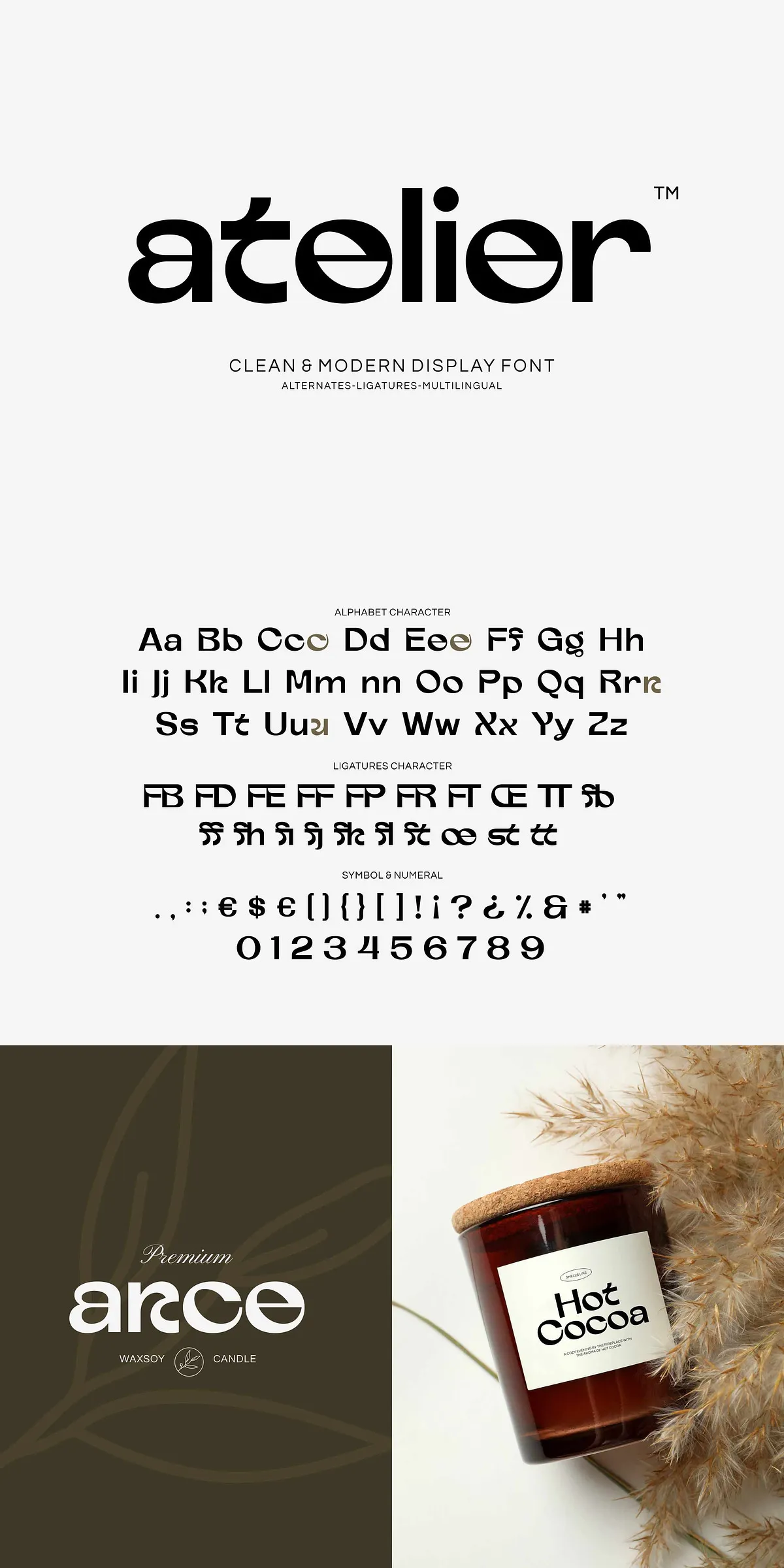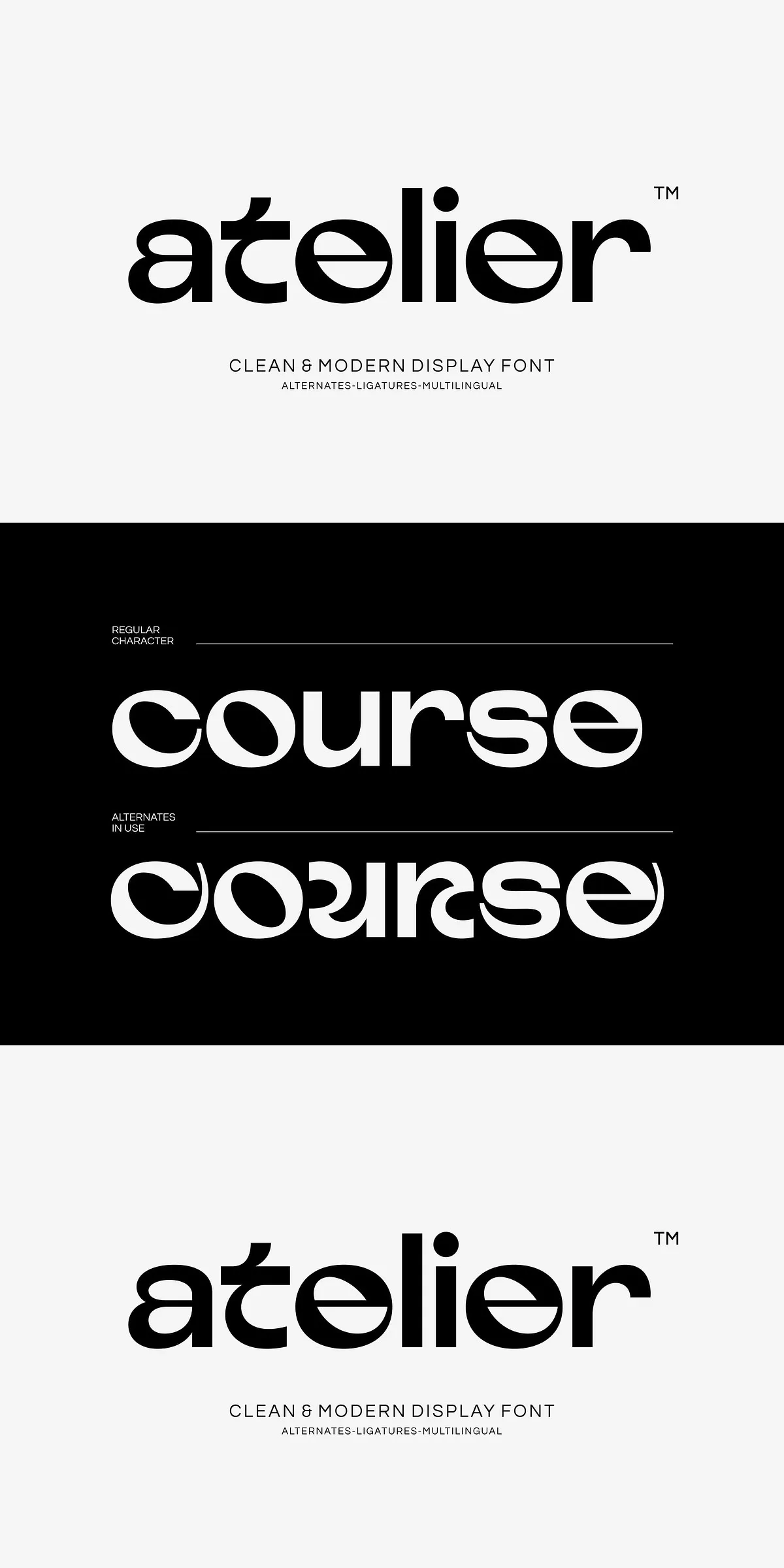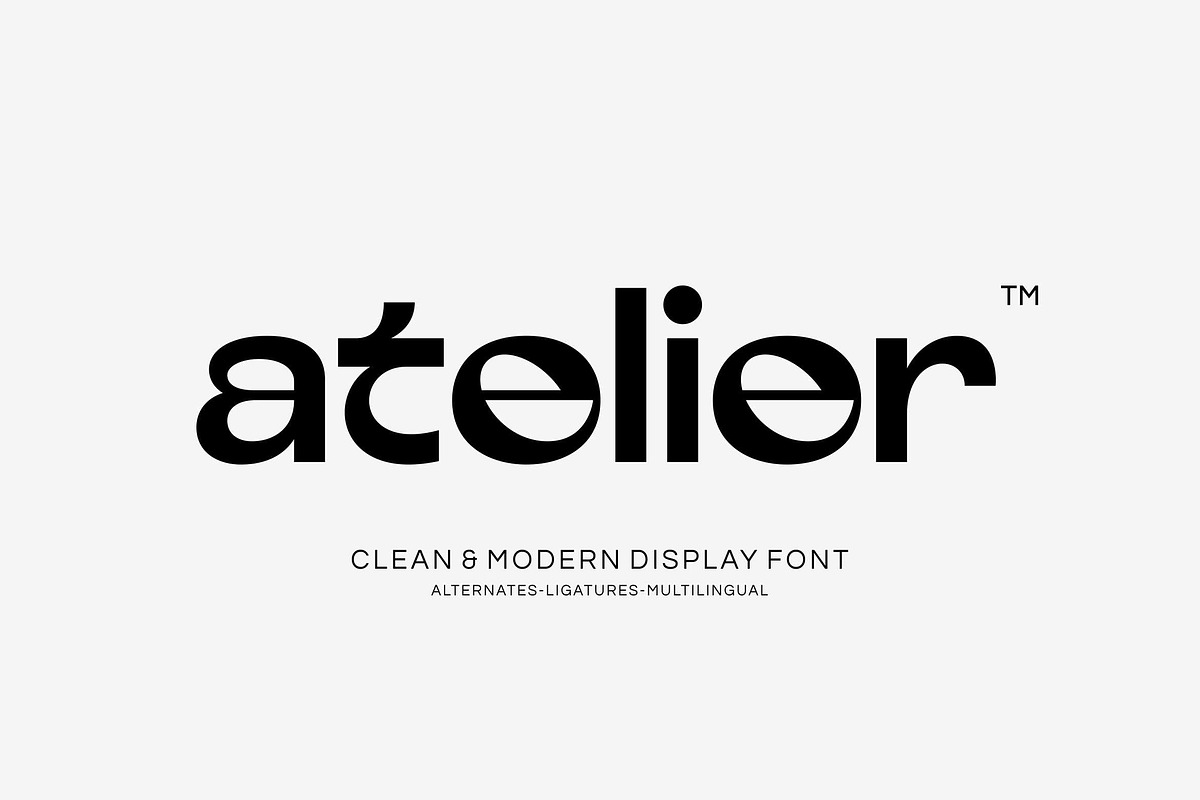
Step into the future of typography with Atelier—a bold, clean, and meticulously crafted modern display font that redefines minimalist elegance. It’s not just a typeface; it’s a statement. With its geometric precision, sleek angular lines, and harmoniously integrated curves, Atelier masterfully balances rigidity and fluidity, forming a visual rhythm that commands attention while maintaining refined sophistication.
Engineered for high-impact design, Atelier transcends trends. This is not a fleeting aesthetic—it’s a timeless tool for creators who demand clarity, strength, and style. Whether you’re branding a luxury fashion house, designing a premium product launch, or crafting a bold editorial layout, Atelier gives your message power, presence, and distinction.
Why Atelier Is the Ultimate Choice for Modern Design Visionaries
Atelier isn’t created to be noticed—it’s designed to dominate. Its sharp, clean letterforms are not only visually striking but meticulously kerned and spaced for maximum legibility and rhythm across all applications. The subtle interplay of geometry and organic curves ensures that each character feels intentional, dynamic, and deeply expressive.
The Architectural Strength Behind the Aesthetic
- Sharp Geometric Structure with Fluid Transitions: Angular corners and defined edges provide modern authority, while gentle curves introduce motion and grace—creating a dynamic duality that’s both bold and balanced.
- Uppercase and Lowercase Support: Full coverage of both cases allows for versatile expression—ideal for headlines, brand names, product labels, and sophisticated typography in digital and print.
- PUA Encoded Characters & Stylistic Alternates: Access advanced glyphs and unique visual alternatives that let you customize your text for maximum originality and visual interest.
- Ligatures & Contextual Alternates: Enhance text flow and creativity with intelligent OpenType features that subtly elevate the typography without manual intervention.
- Multilingual & Comprehensive Symbol Set: Fully supports Western, Central, and Eastern European languages, including special diacritics, currency symbols, punctuation, and numerals—perfect for global branding and inclusive design.
Where Atelier Elevates Design: Real-World Applications
Atelier thrives where excellence matters. It’s not just for decoration—it’s the backbone of high-end communication.
Luxury Branding & Logo Identity
Build a logo that feels exclusive, modern, and bold. Atelier’s geometric clarity makes it ideal for fashion labels, beauty brands, tech startups, and premium lifestyle products. Its clean lines signal sophistication, while its experimental edge sets a brand apart from the competition.
Product Packaging & Editorial Design
On premium packaging, Atelier delivers a sense of high-end craftsmanship. Use it for bottle labels, luxury boxes, and premium retail displays. In magazines and newspapers, it turns headlines into centerpieces—graceful yet commanding.
Website Headers & Digital UX
Use Atelier as a website header or hero section font to immediately establish authority and visual hierarchy. Its sharp clarity ensures perfect legibility on any screen, from mobile to 4K monitors—without losing impact.
Fashion, Beauty & Premium Campaigns
From backstage show notes to Instagram campaign copy, Atelier adds a futuristic, avant-garde tone. It’s perfect for editorial shoots, lookbooks, and digital campaigns that demand visual confidence and artistic direction.
No matter your creative platform or project scale, Atelier fits, performs, and impresses.